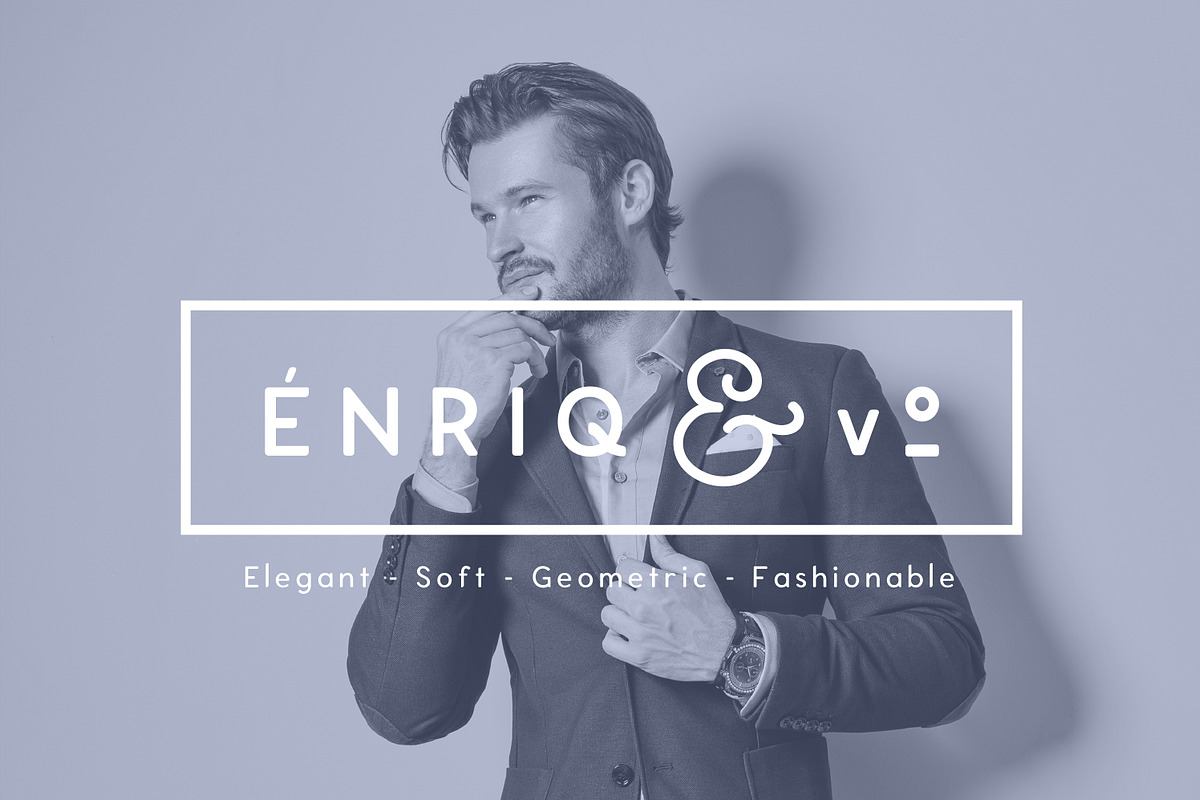
ENRIQ - Elegant Sans Serif Font Free Download
Introducing ENRIQ, an elegant sans serif font designed by NEWFLIX.Bro. This typeface features smooth, rounded edges, combining a fashionable and modern aesthetic with a touch of class. It's well-suited for branding, editorial design, signage, and applications requiring a clean and contemporary look. ENRIQ includes six styles: Regular, Light, Thin, Medium, Bold, and Black, providing versatility for various design needs. It also offers extended language support, ligatures, and more, making it a comprehensive choice for designers
Features:
• Six styles: Regular, Light, Thin, Medium, Bold, Black
• Extended language support
• Ligatures and additional OpenType features